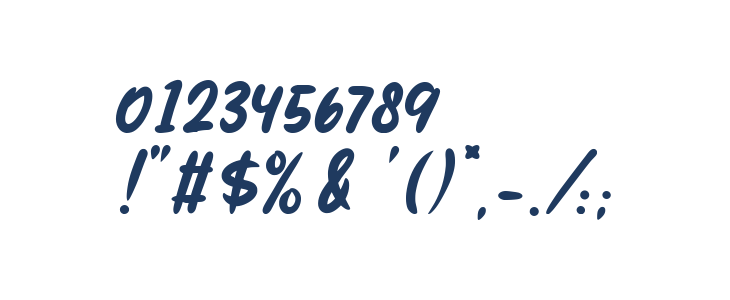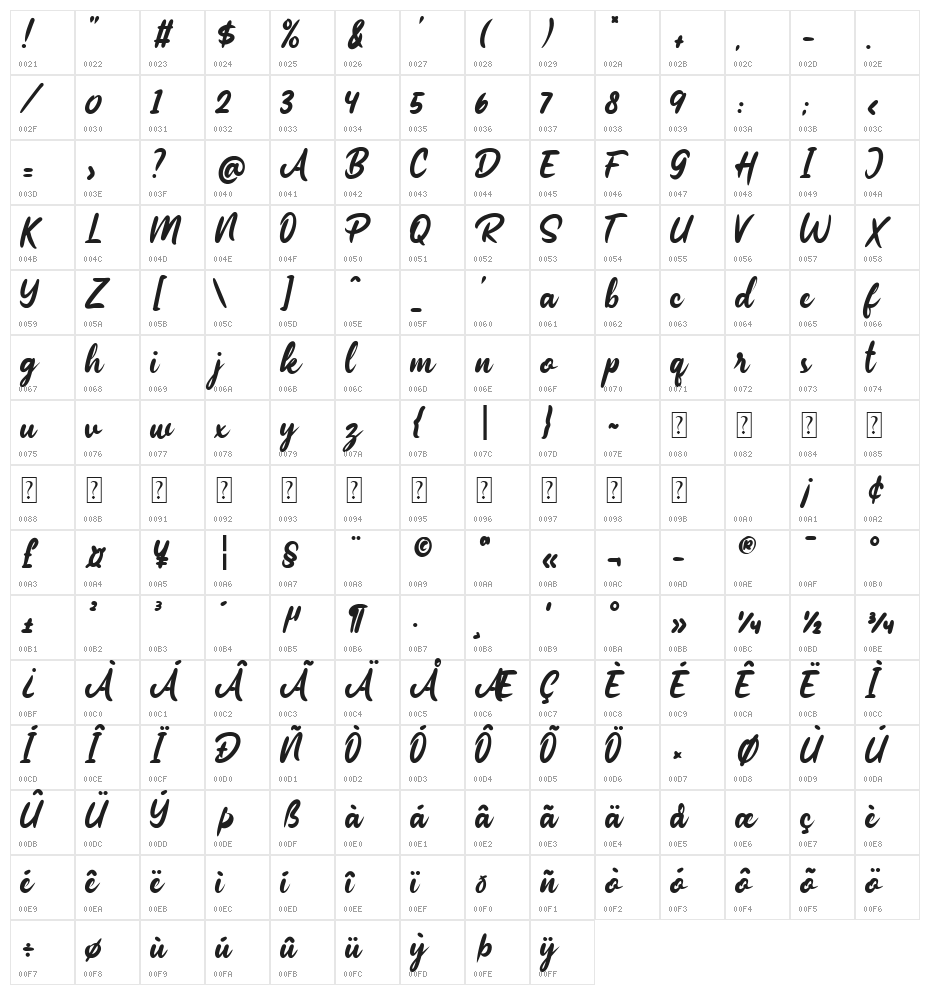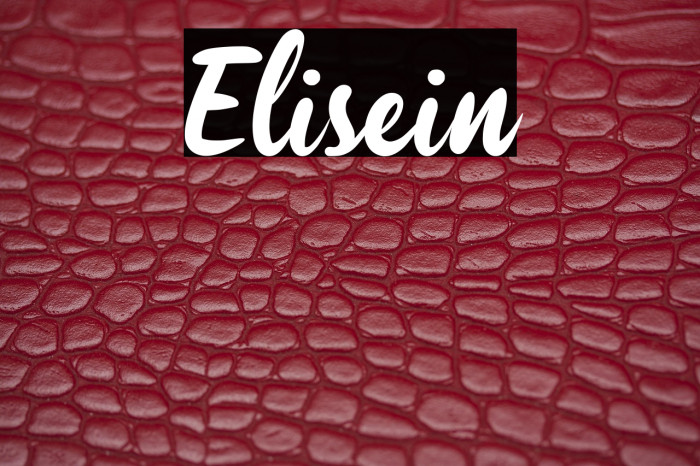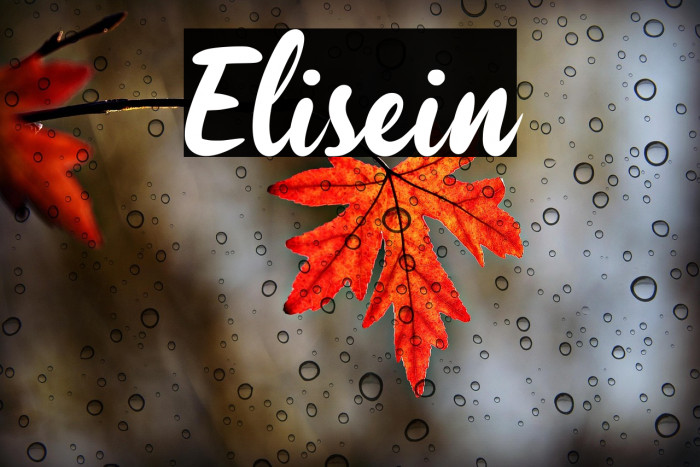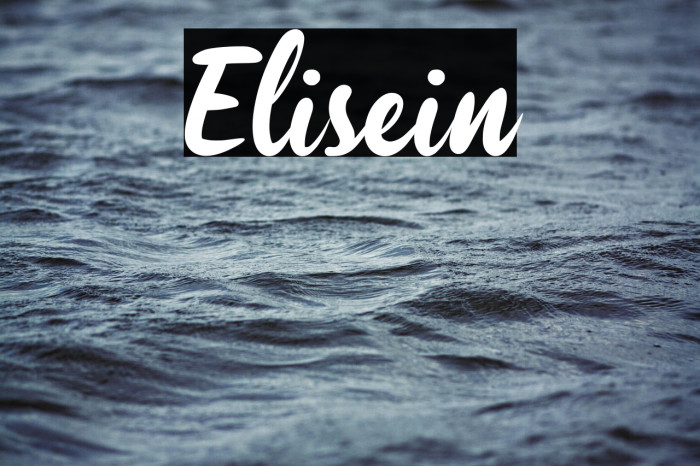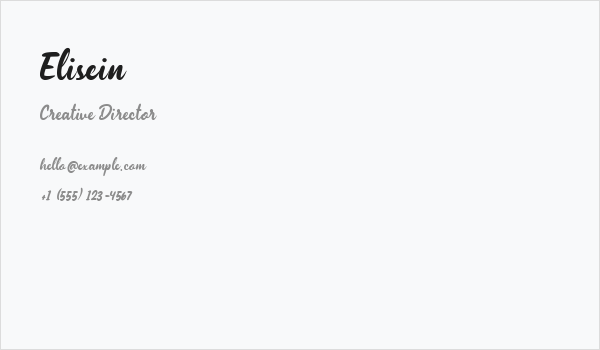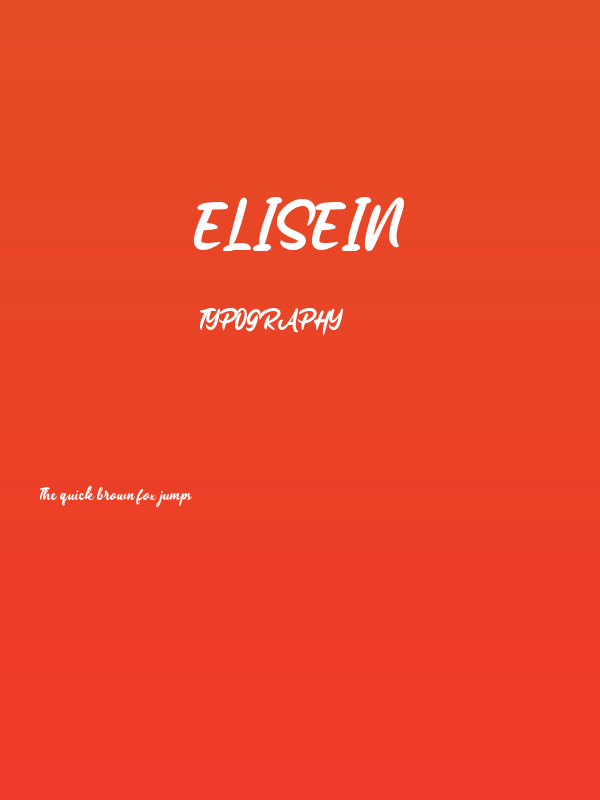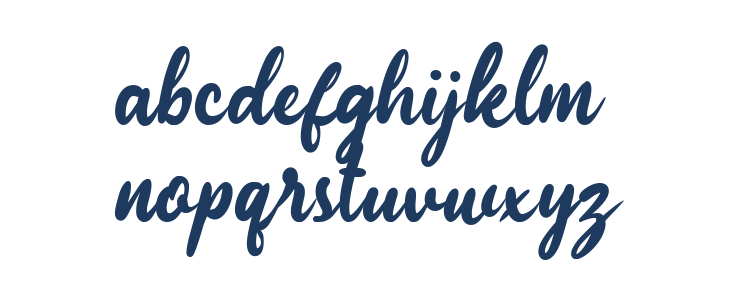
Elisein Font
Elisein Description
This font features a bold and expressive script style, characterized by its flowing, cursive letterforms. The strokes are thick and consistent, giving it a strong presence. The uppercase letters are slightly more upright, while the lowercase letters exhibit a more pronounced slant, enhancing the dynamic and energetic feel. The numbers and special characters maintain the same boldness, ensuring a cohesive look across all elements. The overall design is reminiscent of hand-painted signage, making it ideal for projects that require a personal and artistic touch.
| Proposed Projects | Ideal for branding, packaging, posters, and invitations where a personal and artistic touch is desired. |